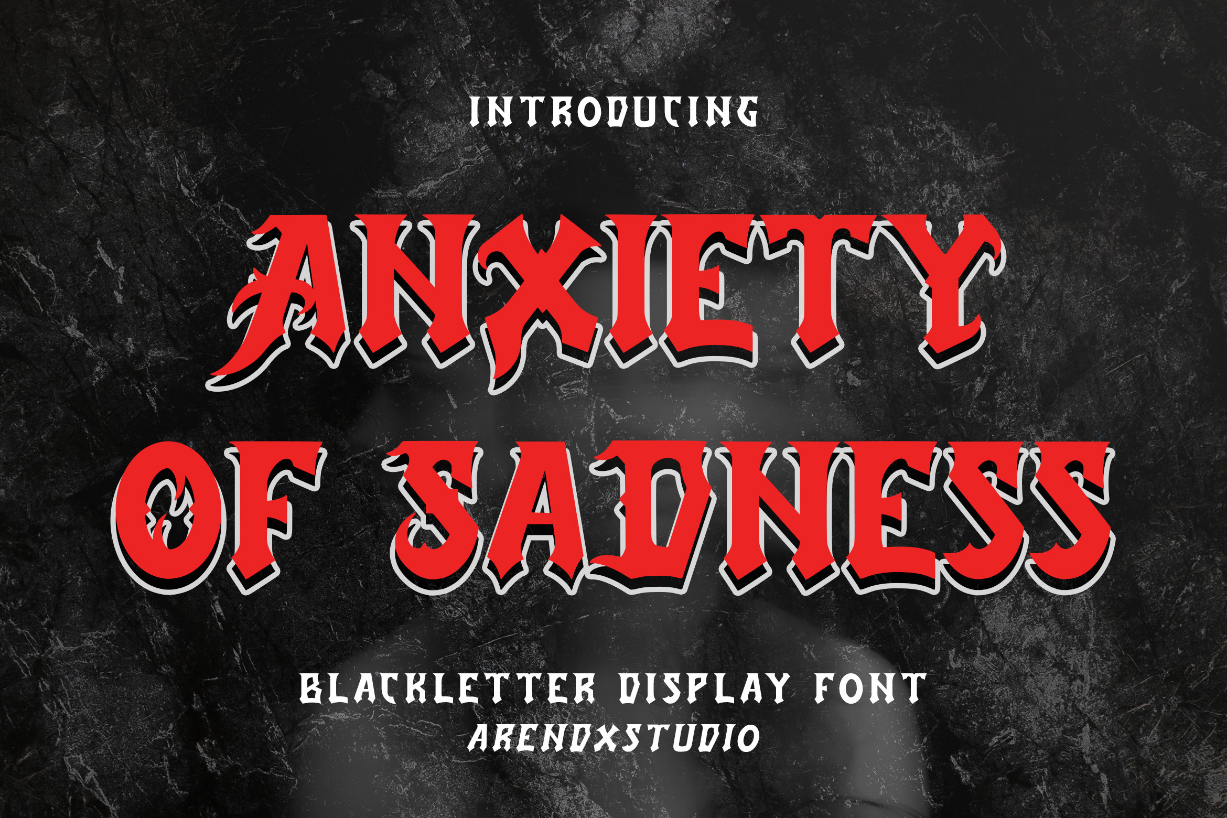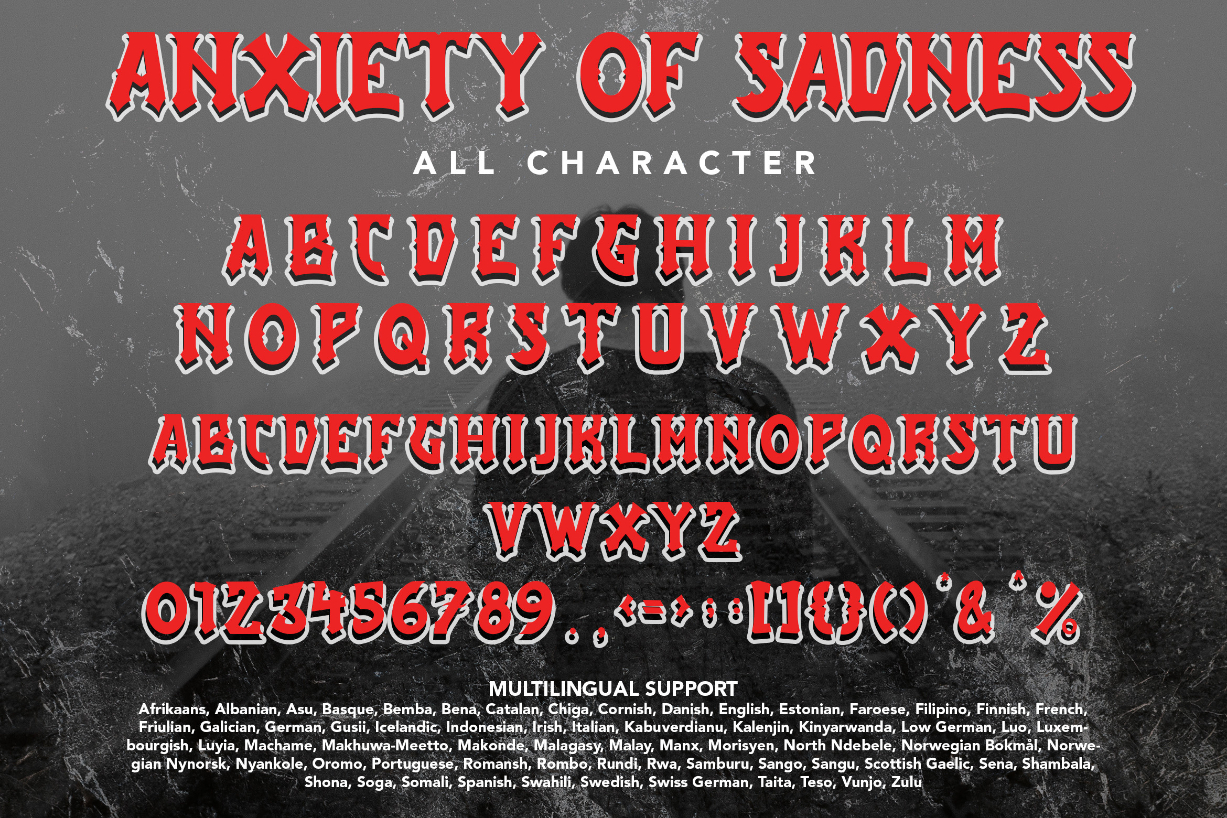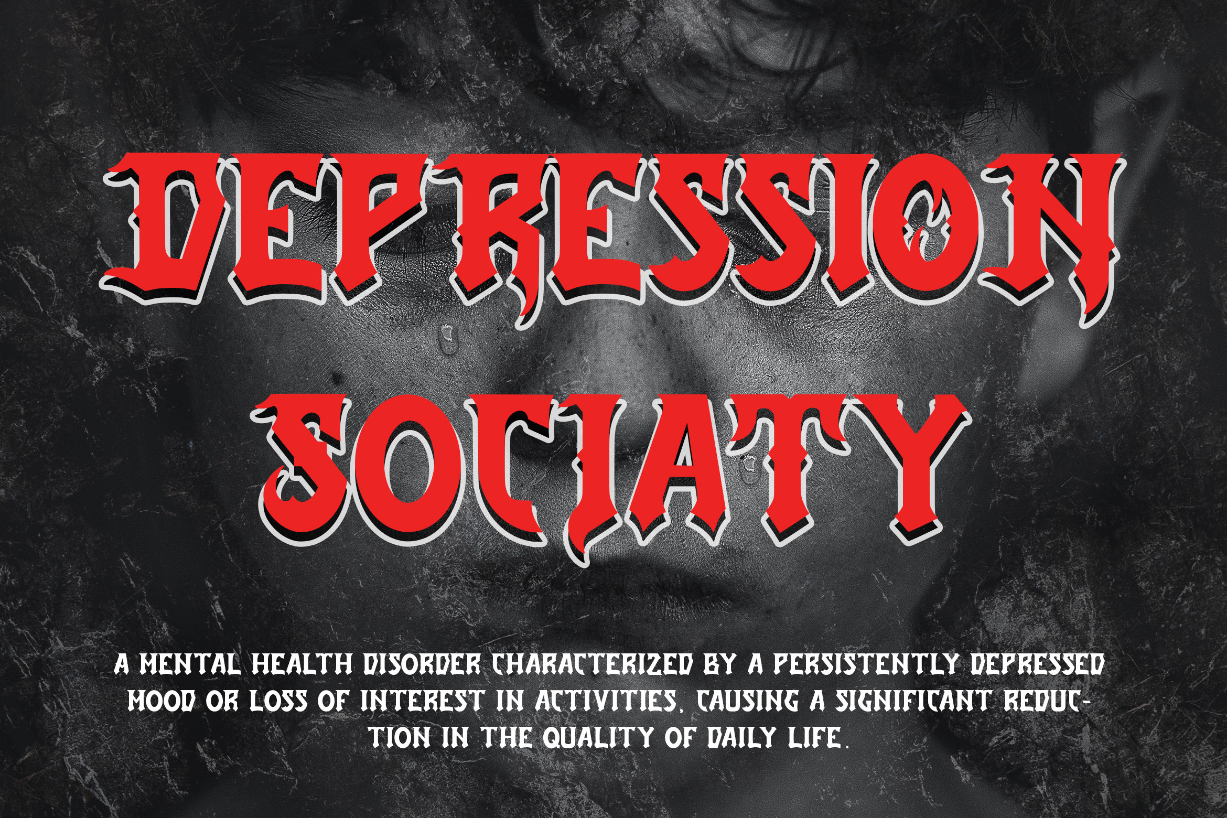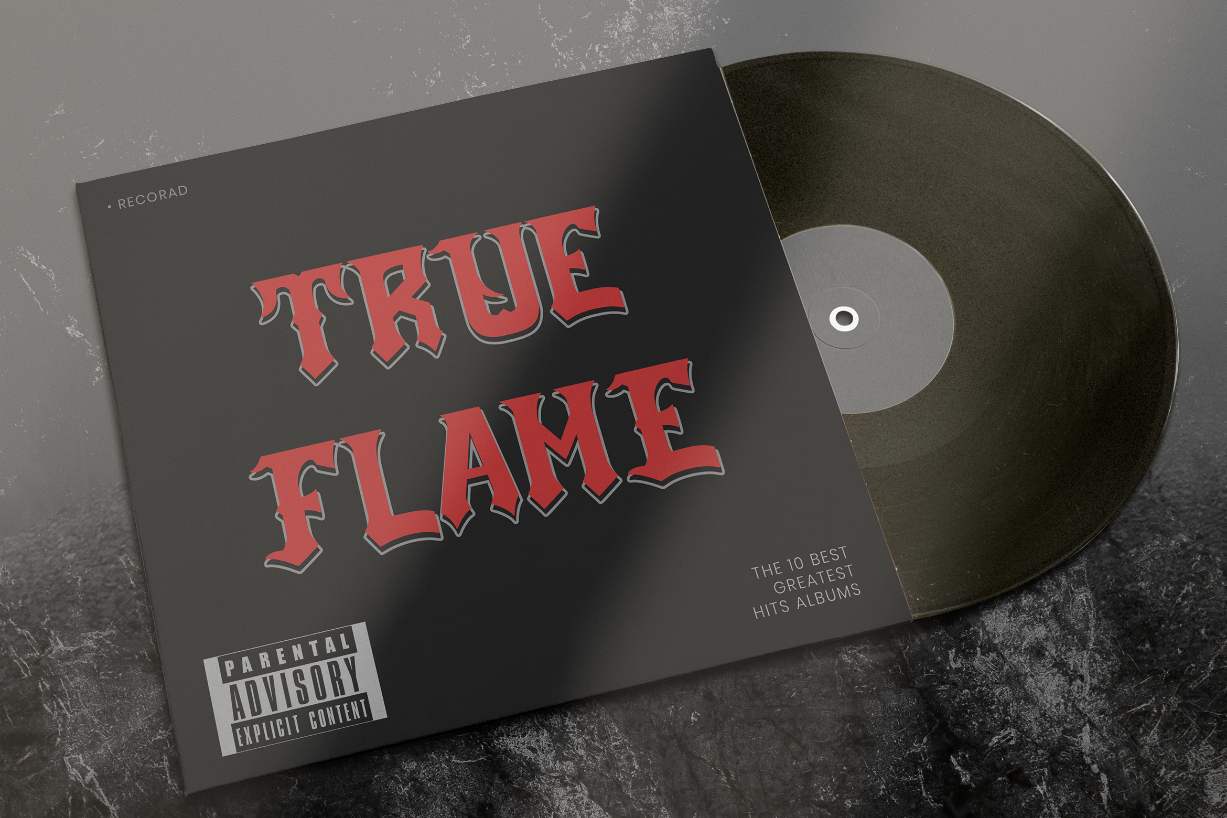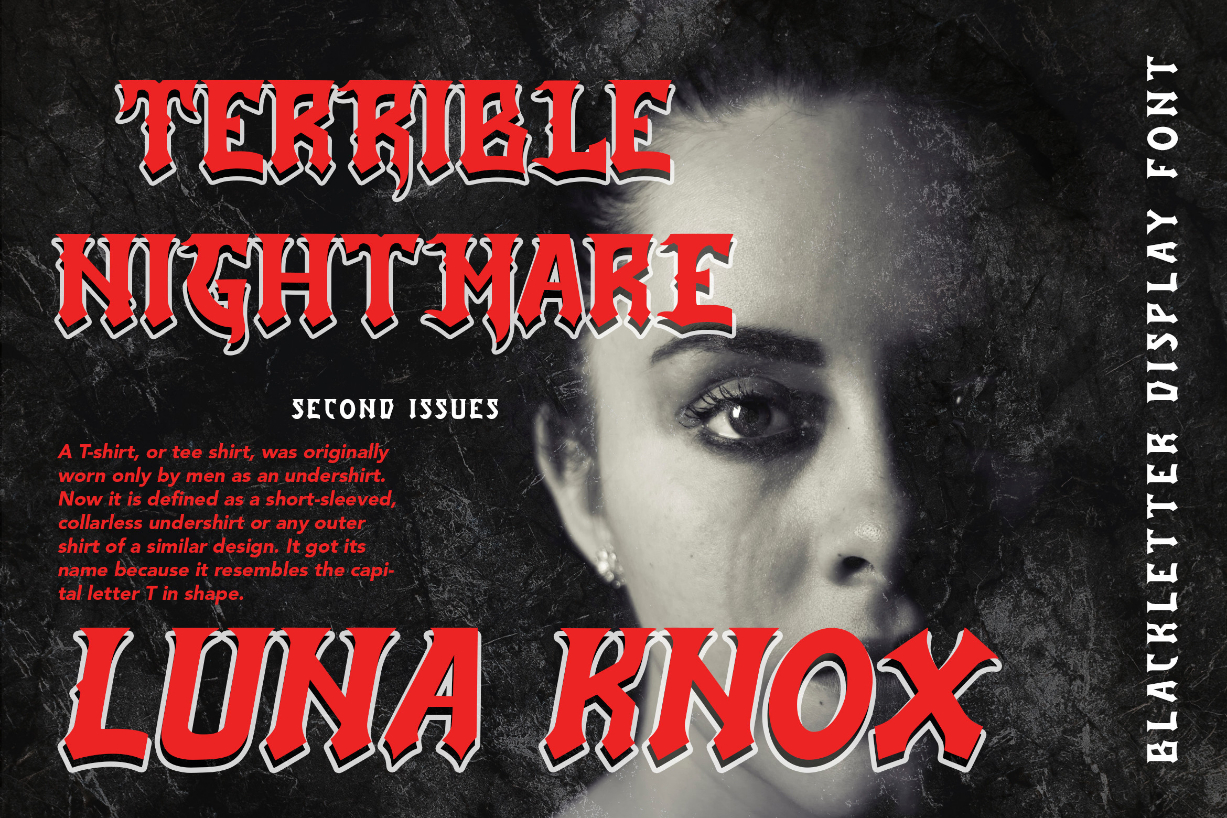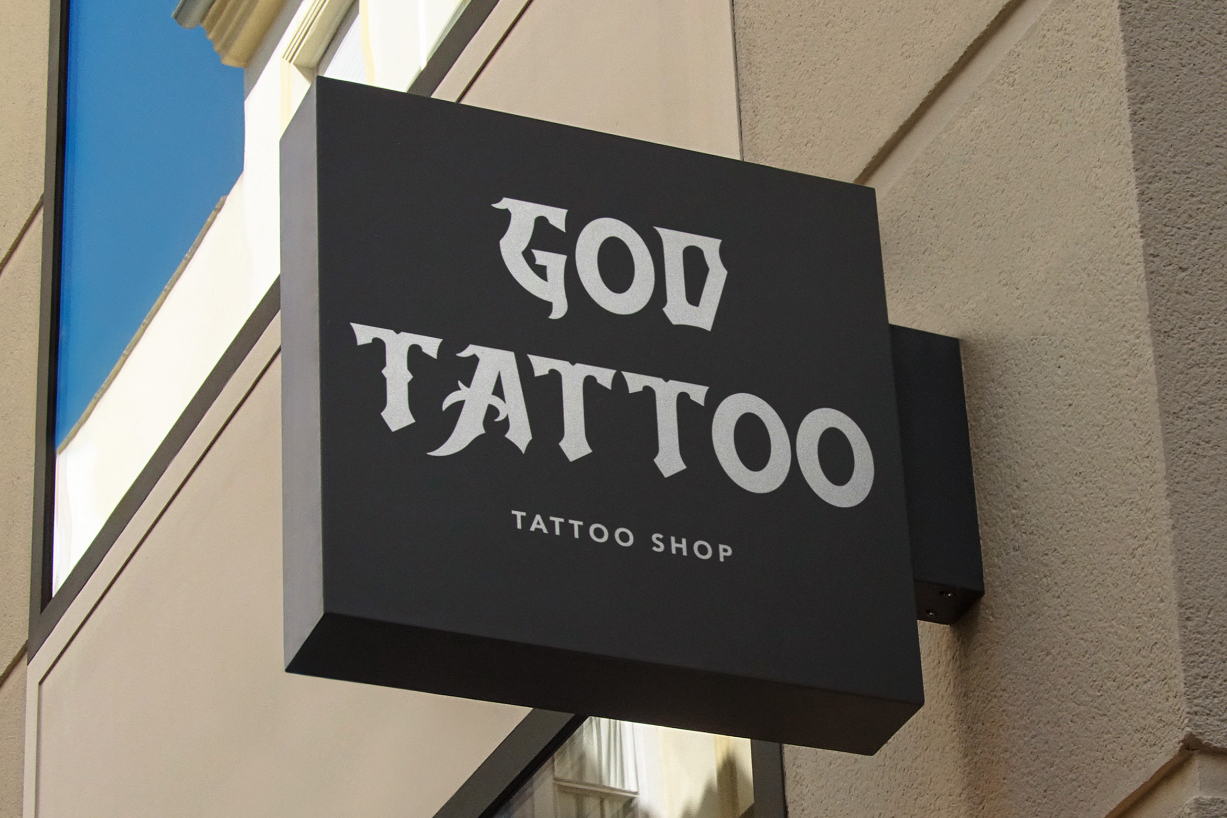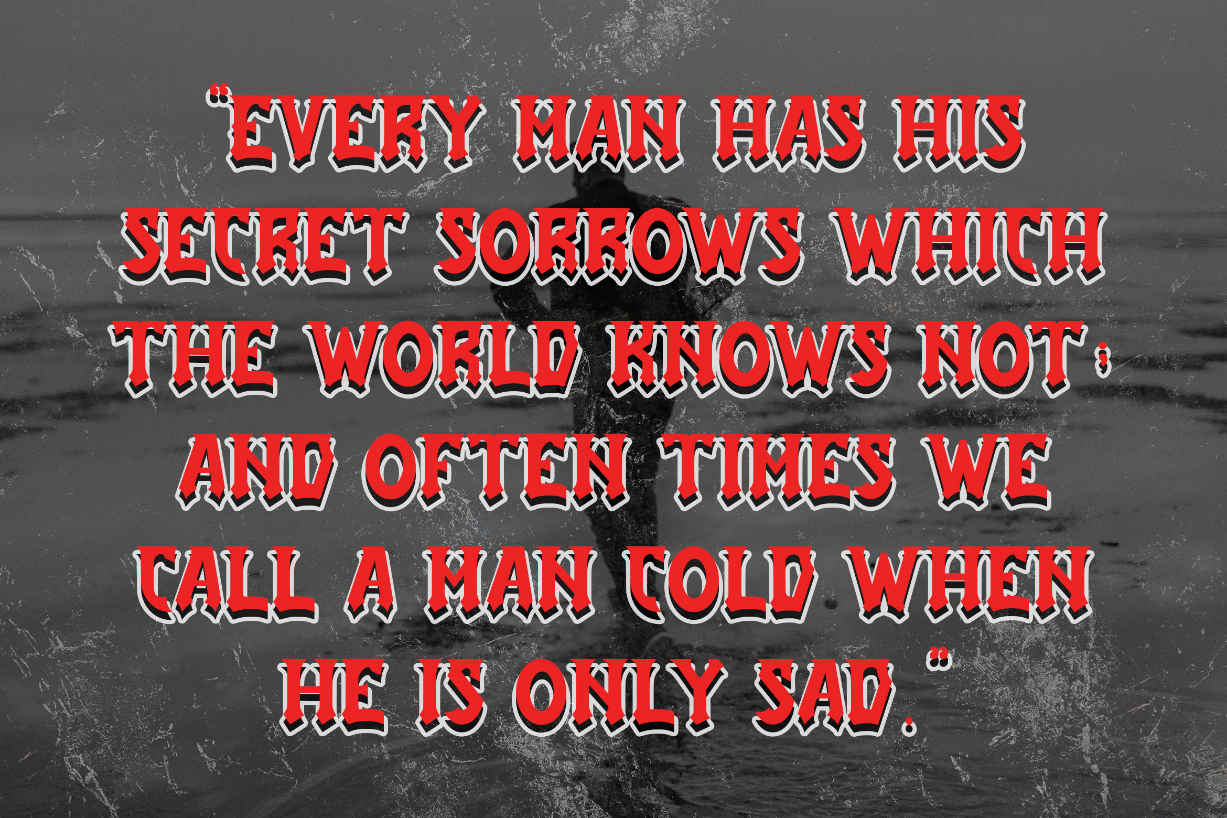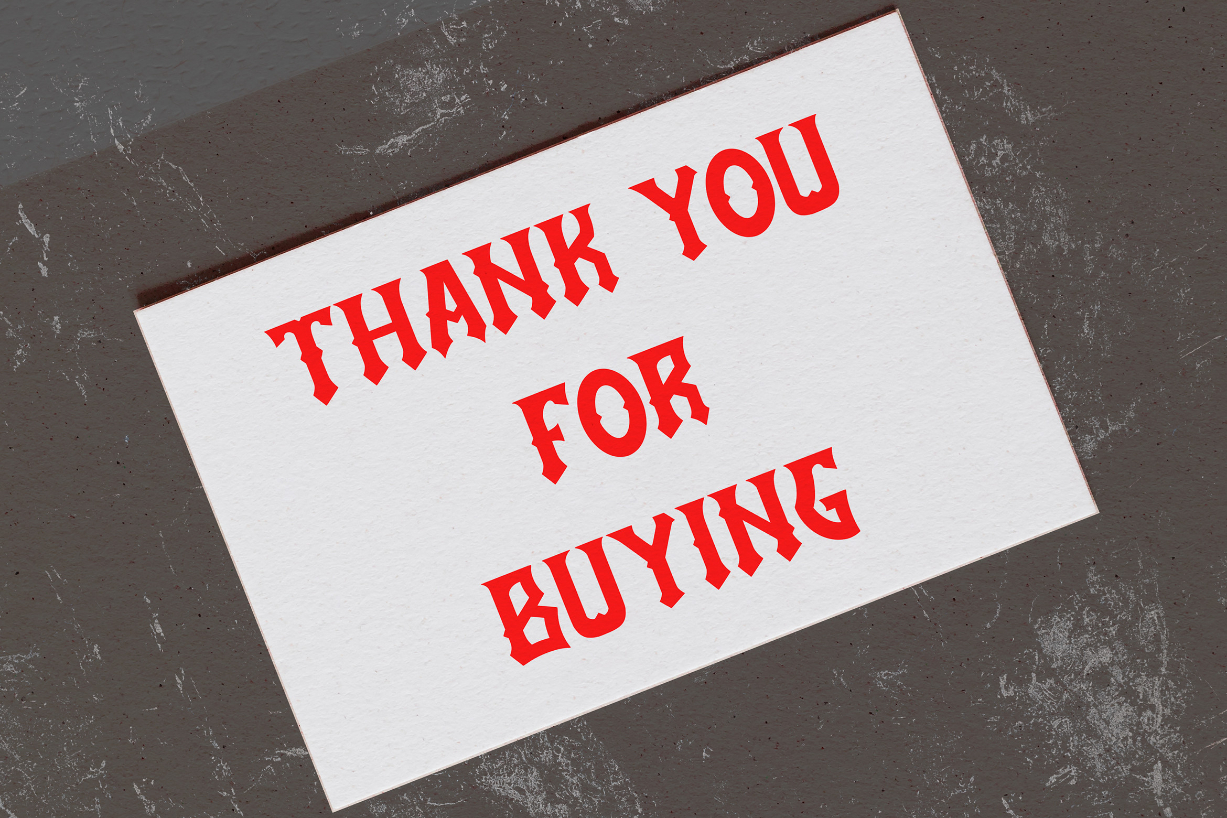
Anxiety of Sadness Font
About Anxiety of Sadness Font
Anxiety Of Sadness is a blackletter font inspired by the gothic and horror style, perfect for any project with this theme. This font is good for logotypes, posters, badges, book covers, T-shirt designs, packaging, and many more. Add it to any of your creative designs, and notice how it makes them stand out.